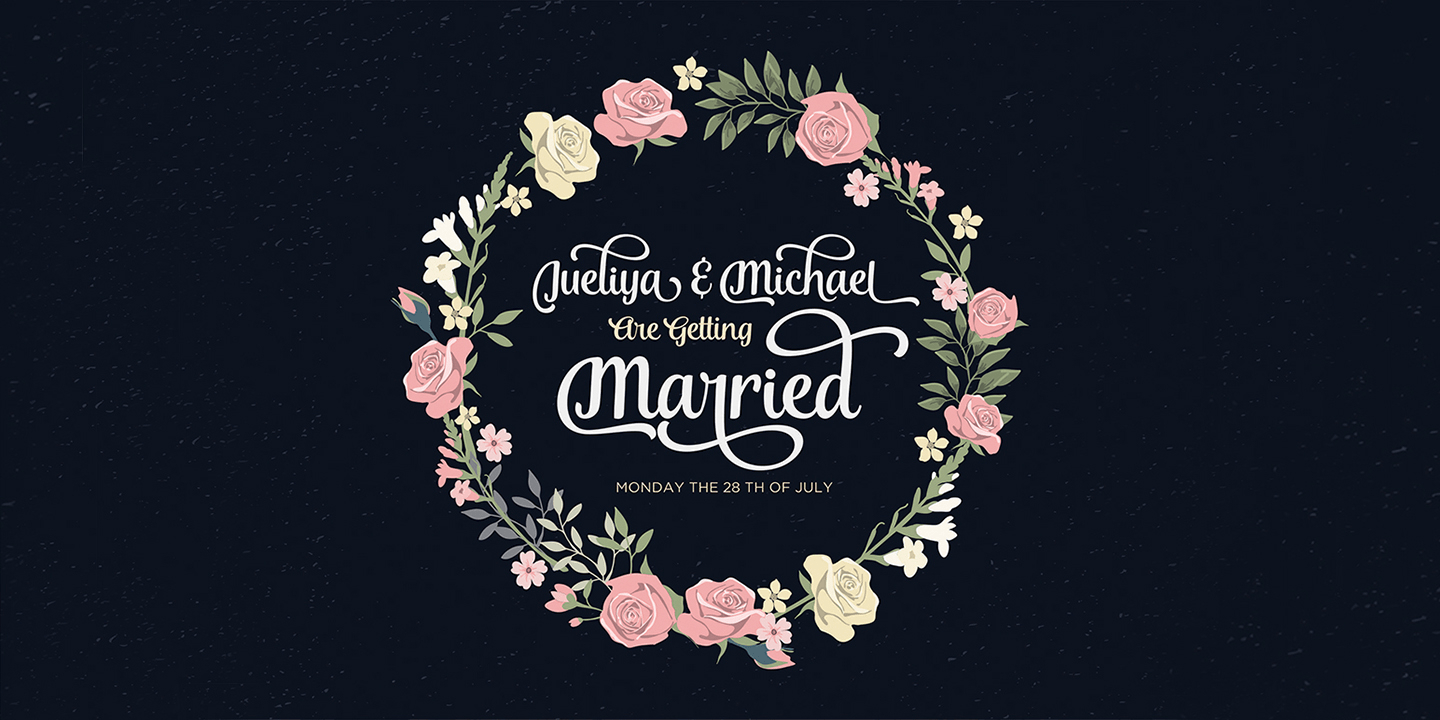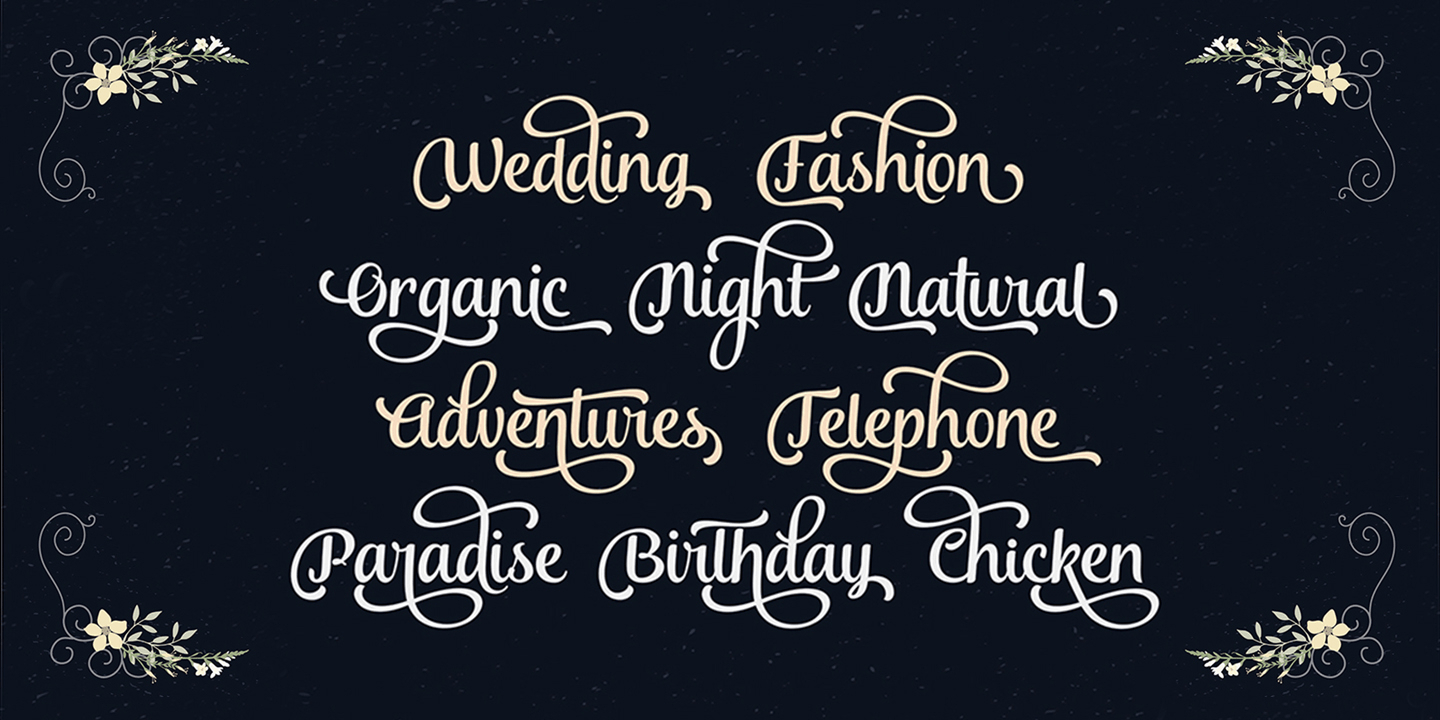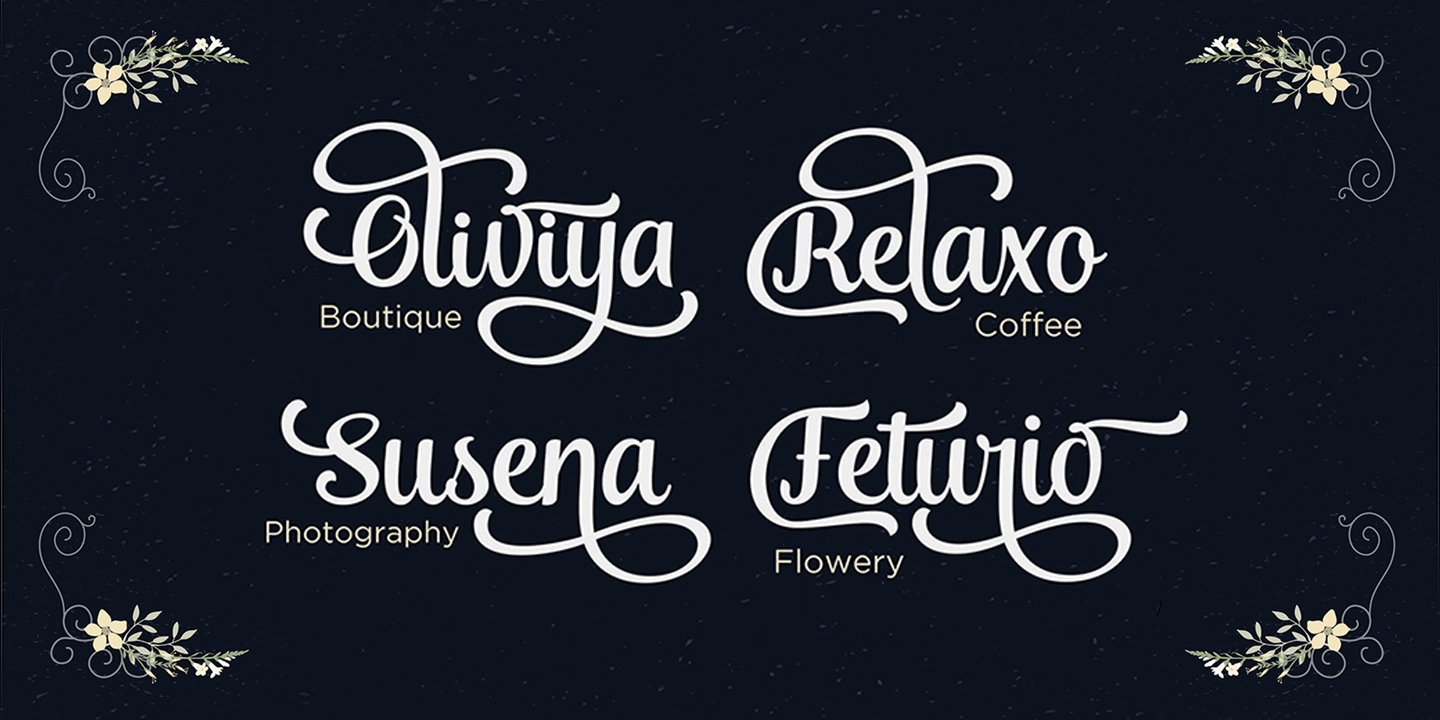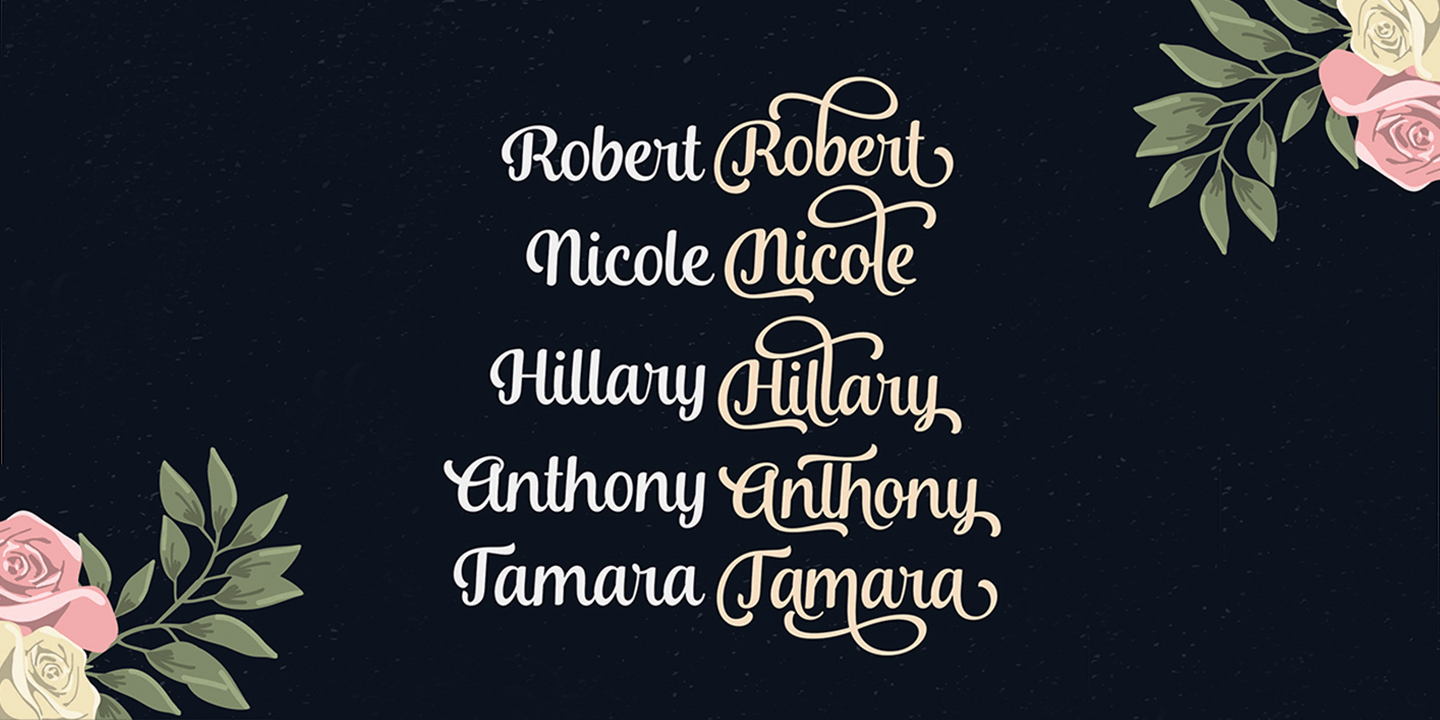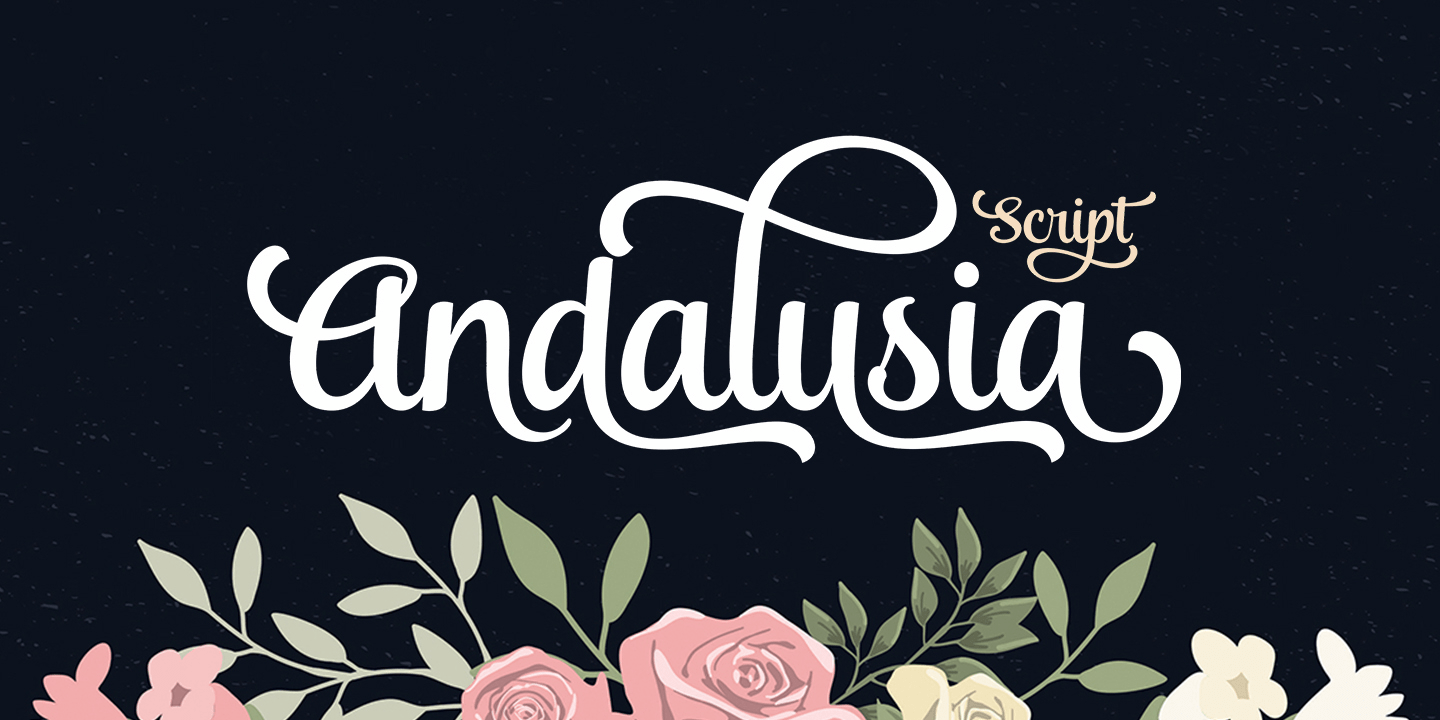
About Andalusia Script
Andalusia Script is a romantic typeface – a bold, elegant & fun vintage script font. Can be used for various purposes such as logos, wedding invitation, t-shirt, letterhead, signage, news, posters, badges etc. Andalusia Script features 423+ glyphs and…